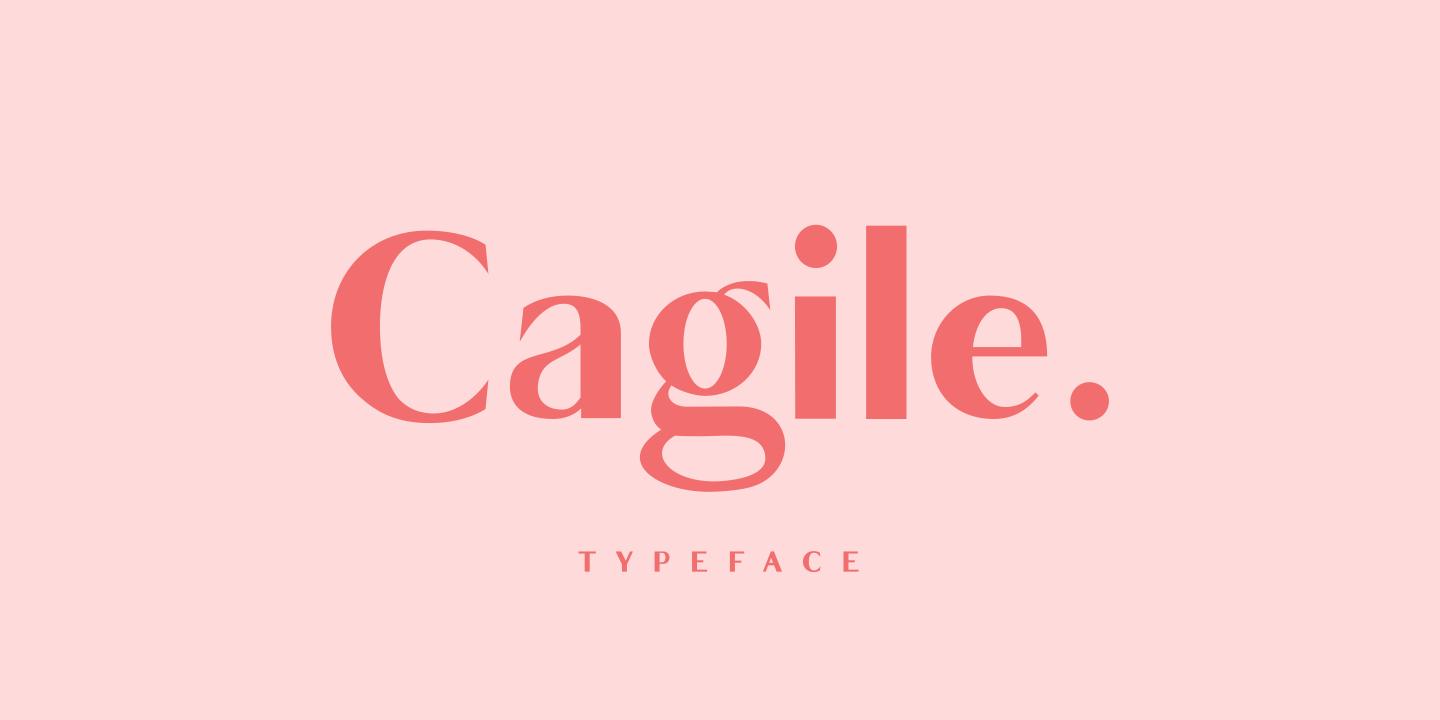
Cagile Font is perfect for agile development methodologies, modern software company branding, tech startup communications, project management platforms, innovation workshops, and dynamic business presentations. Its adaptive character makes it ideal for software development firms, agile coaching consultancies, tech accelerators, digital transformation agencies, and any application requiring flexible typography that conveys adaptability, rapid iteration, and the progressive spirit of modern business methodologies.
Cagile Font is exciting because it embodies the core principles of agile methodology through dynamically crafted letterforms that reflect flexibility, collaboration, and continuous improvement. Its responsive proportions and adaptive details mirror the iterative nature of agile development processes, making it perfect for organizations embracing rapid change and customer-focused innovation. The font's agile character instantly communicates expertise in modern business practices and technological adaptability.
Cagile Font family includes methodology-inspired weight variations typically featuring Light, Regular, Medium, Semibold, and Bold options with dynamic italic styles that demonstrate agile flexibility. The family often incorporates tech symbols, development icons, and process-related characters designed for software methodology applications, providing designers with comprehensive tools for creating authentic, agile-focused typographic solutions.
When selecting agile methodology typography solutions, Cagile Font Free Download represents an exceptional choice for modern software development projects. This innovative typeface brings instant agile credibility to any design, making it invaluable for software companies, development teams, and business consultancies specializing in agile transformation. Whether you're developing agile training materials, creating software development branding, or designing innovation workshop presentations, Cagile Font provides the adaptive flexibility and methodological authenticity essential for communicating agile excellence in today's rapidly evolving technology landscape.